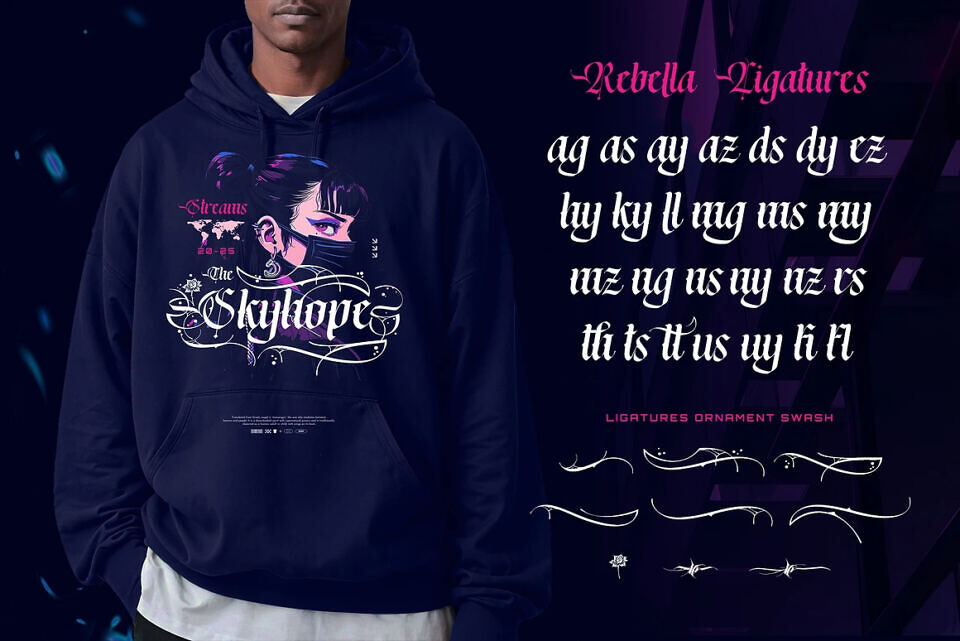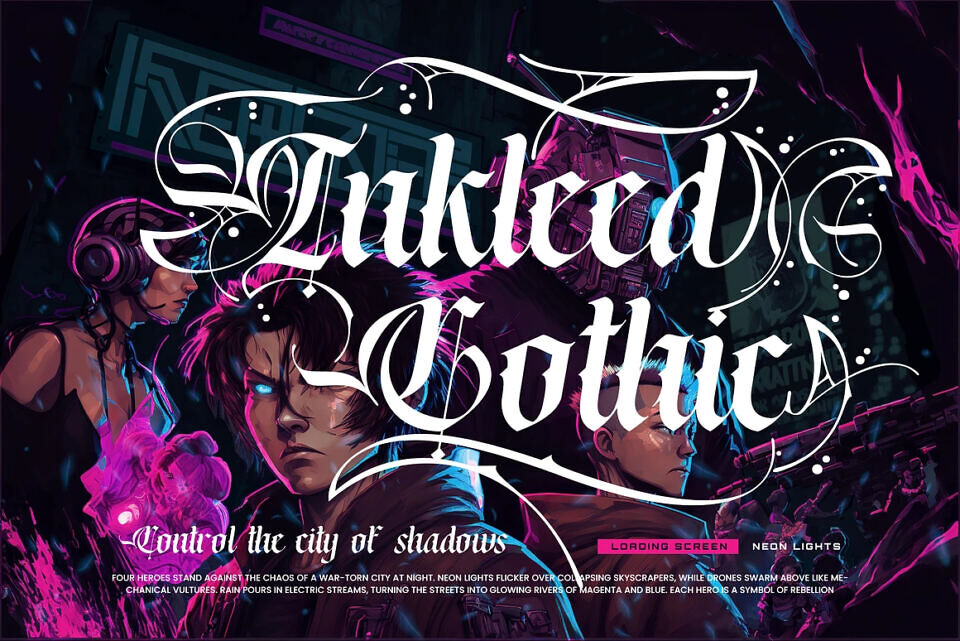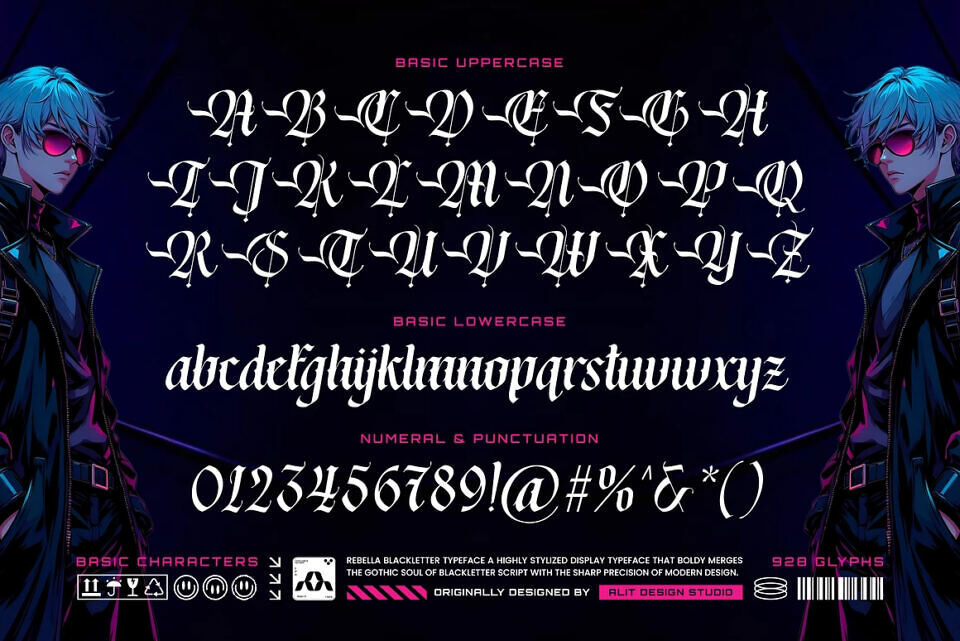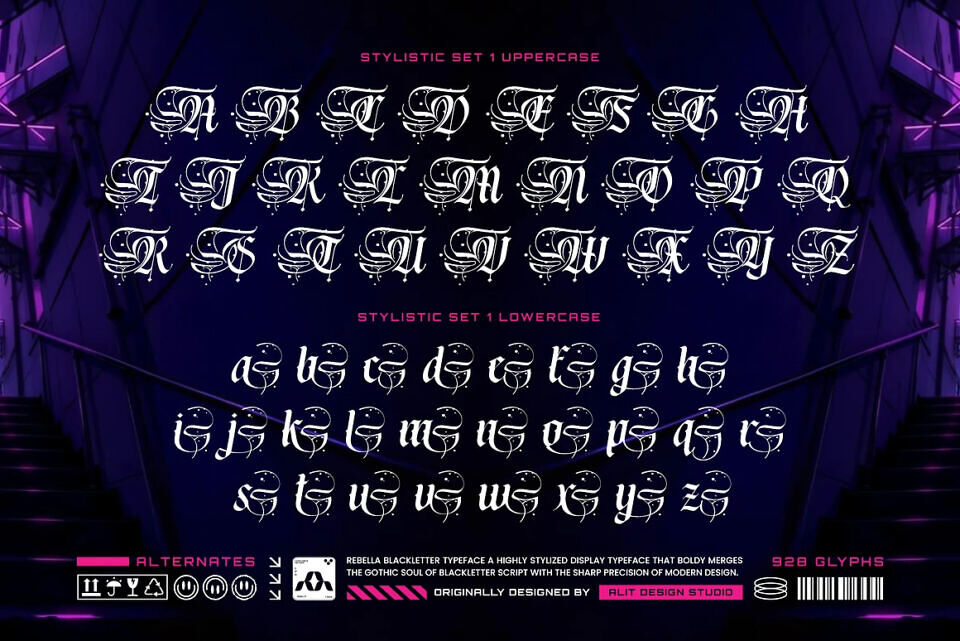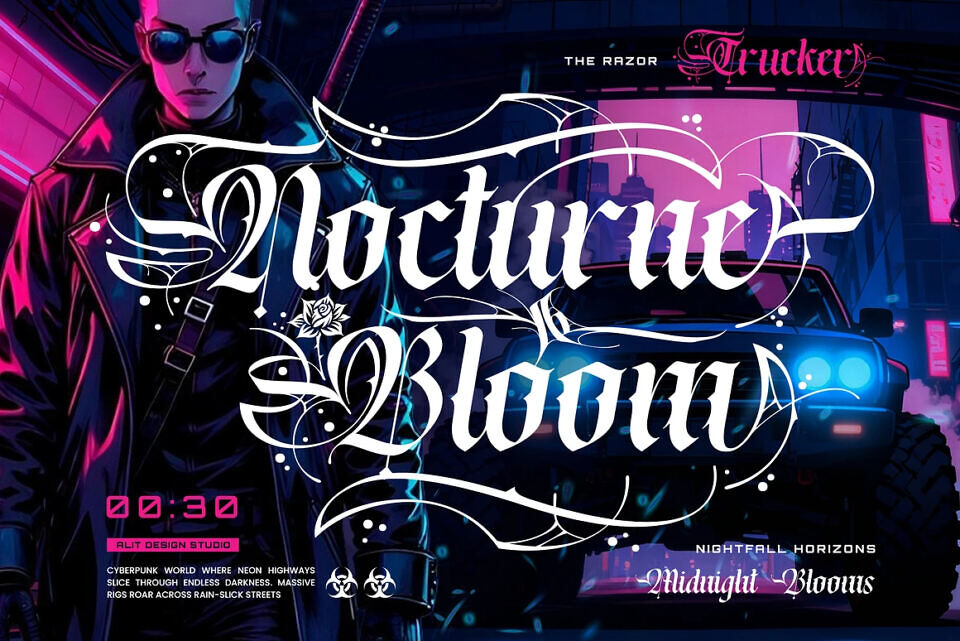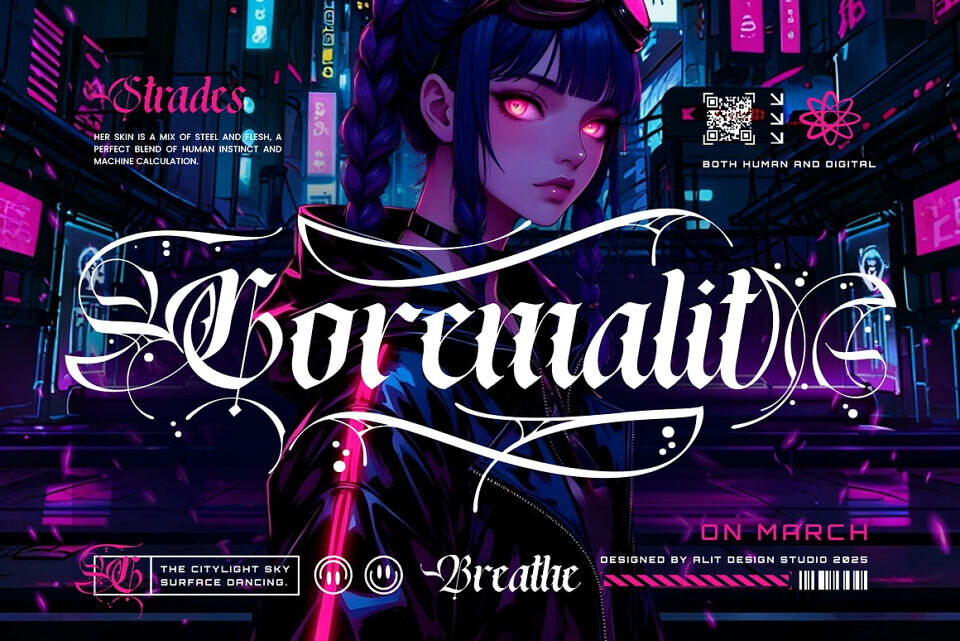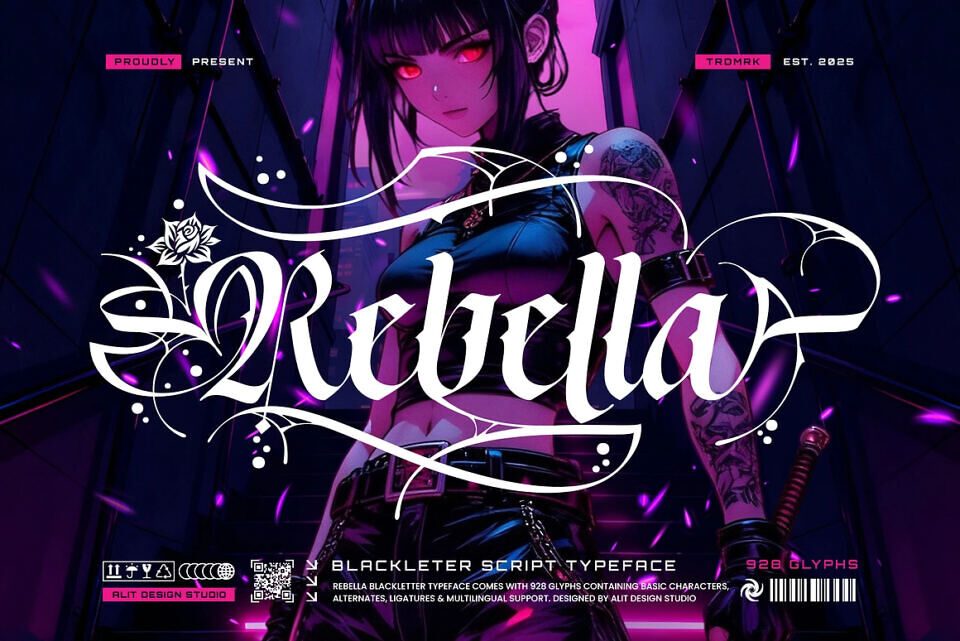
Rebella Font
Step into a fusion of gothic tradition and neon-lit futurism with Rebella, a bold blackletter script by Alit Design Studio. Featuring over 928 glyphs, dynamic flourishes, liquid swashes, and intricate rose motifs, Rebella offers limitless creative flexibility.
Perfect for logos, posters, album art, apparel, and gaming visuals, it supports ligatures, multilingual characters, and stylistic alternates for fully customized designs. Rebella transforms every project into a statement of rebellion and sophistication, blending classic calligraphy with edgy cyberpunk aesthetics for designers seeking innovation and impact.